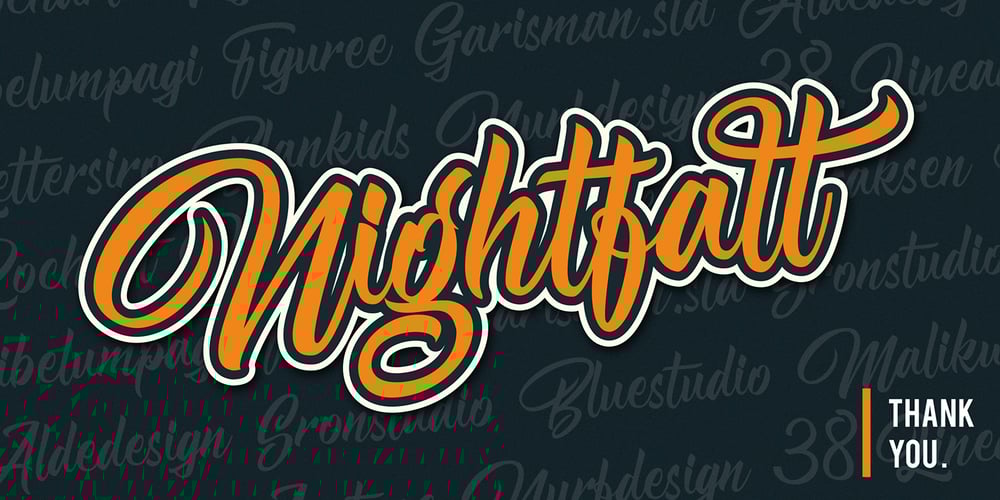
Nightfall Script Font Family was designed by Icep Anwar Fadhil and published by Figuree Studio. Nightfall Script contains 1 styles and family package options. Introducing a new font called Nightfall, inspired by urban script fonts with sharp and beautiful letters that create fonts that are modern, trendy and elegant. Nightfall comes with open type features such as stylistic alternates, stylistic sets & ligatures and works very well for logotype, poster, badge, book cover, t-shirt design, packaging and any more. “Bold identity will give more value for your work” Features: – Basic Latin A-Z and a-z – Numbers – Symbols – Stylistic Alternate – Stylistic Set – PUA Encode – Multilanguage Support To enable the OpenType Stylistic alternates, you need a program that supports OpenType features such as Adobe Illustrator CS, Adobe Indesign & CorelDraw X6-X7. There are additional ways to access alternates, using Character Map (Windows), Nexus Font (Windows), Font Book (Mac) or a software program such as PopChar (for Windows and Mac). If you have any question, don’t hesitate to contact me by email figuree.id@gmail.com